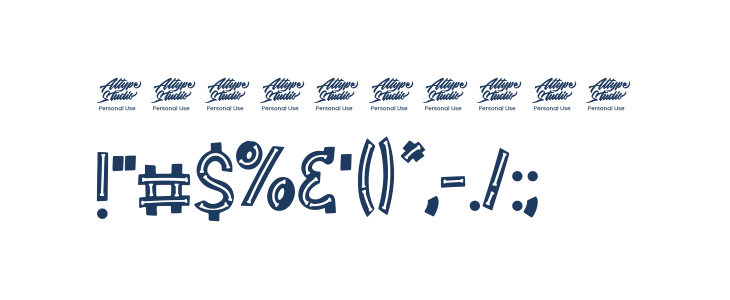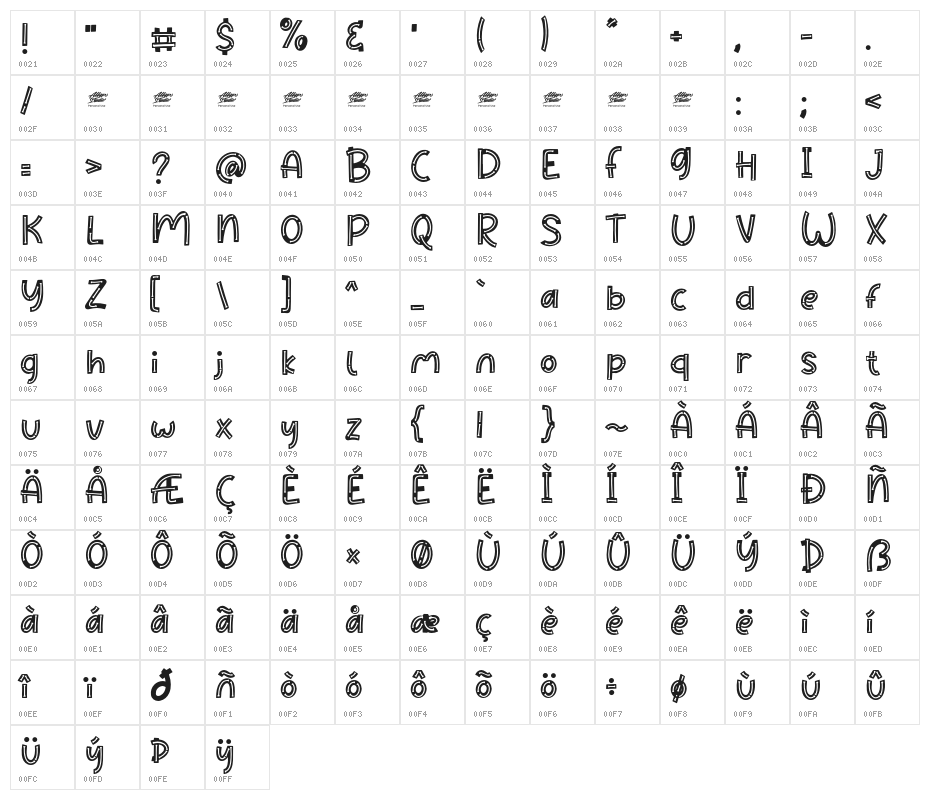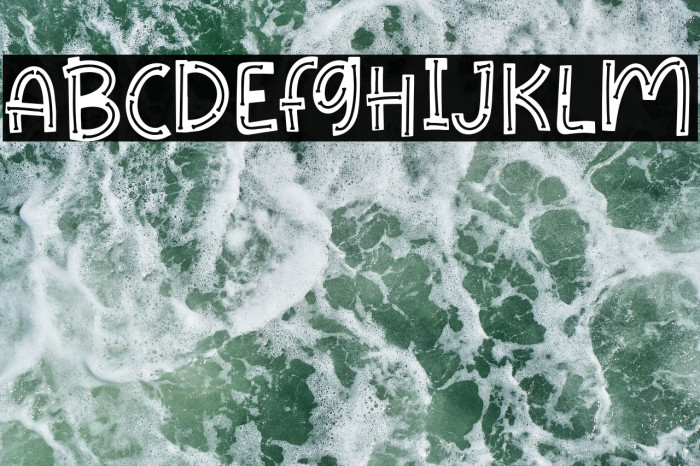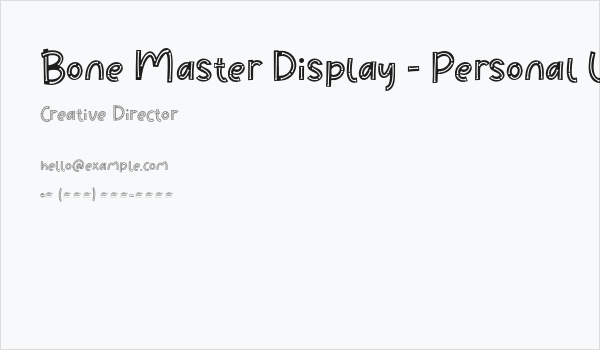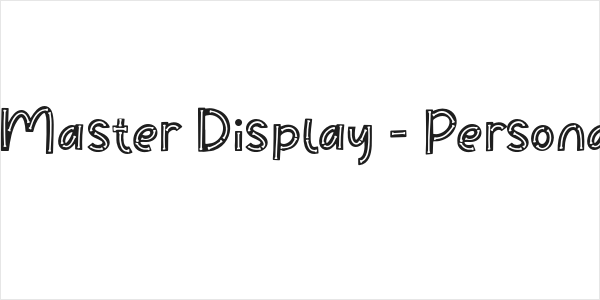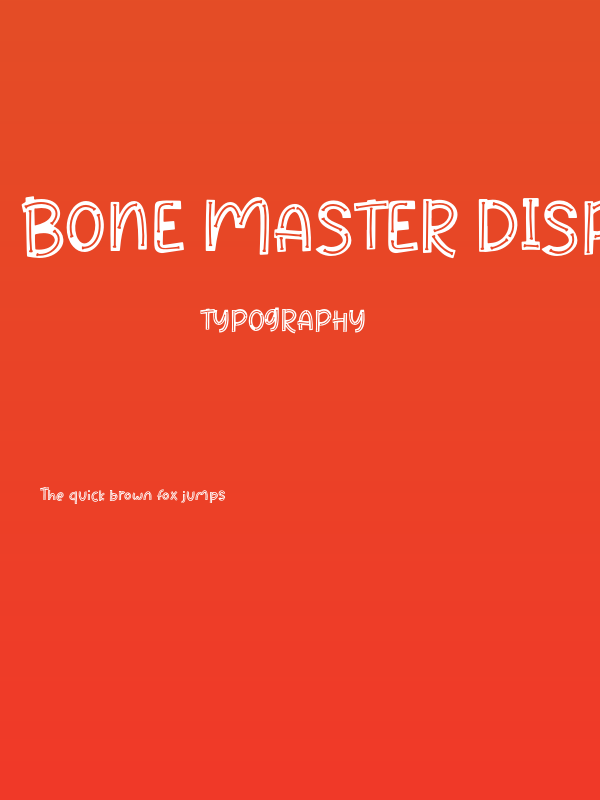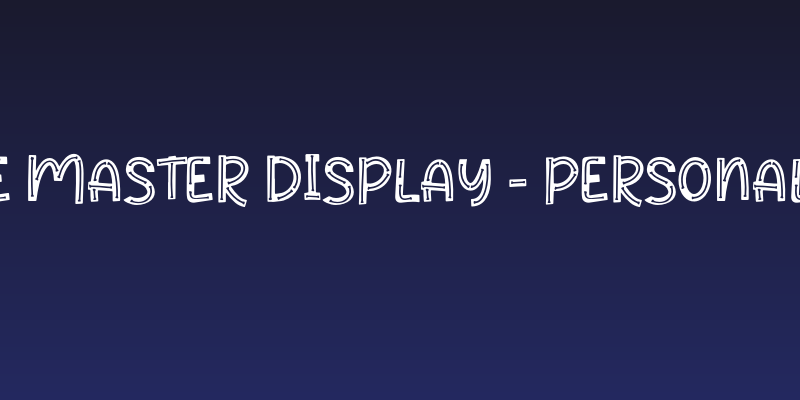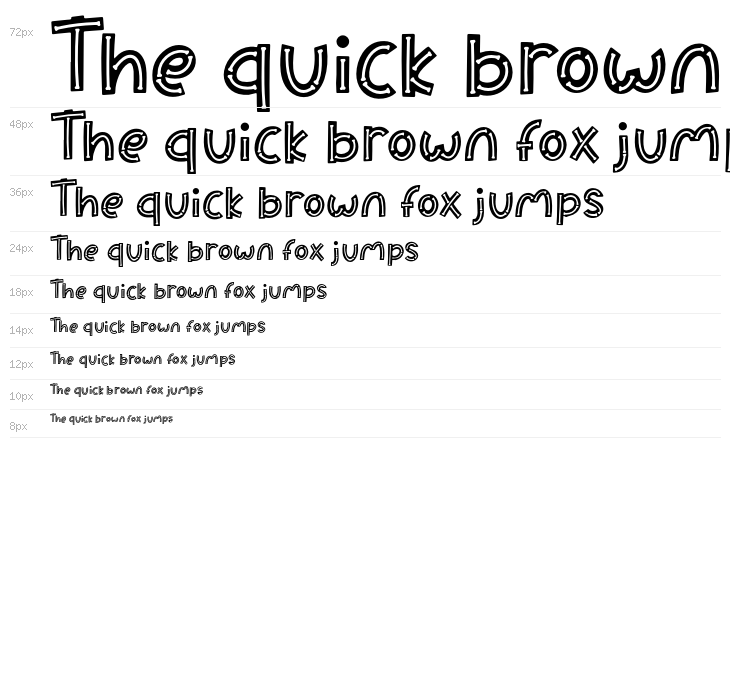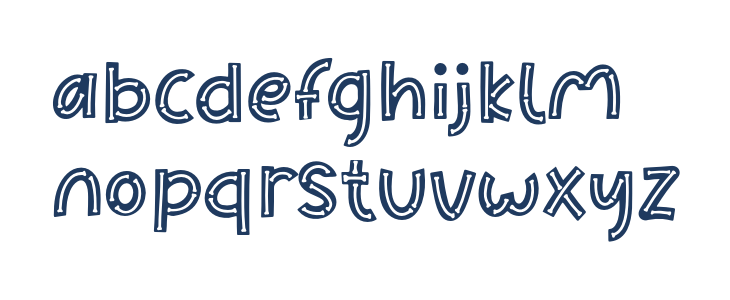
Bone Master Display - Personal Use Font
Bone Master Display - Personal Use Description
This font features a playful and bold design with a hand-drawn aesthetic. The characters are outlined with a thick, black stroke, giving them a cartoonish and whimsical appearance. The letters are slightly irregular, adding to the casual and fun vibe. This style is reminiscent of doodles or graffiti, making it stand out with its unique charm. The font includes both uppercase and lowercase letters, numbers, and a variety of special characters. Its boldness and distinctive style make it suitable for creative and informal projects.
| Overall Style | Playful, Whimsical, Cartoonish |
| Proposed Projects | Ideal for children's books, comic strips, playful branding, and creative posters. |